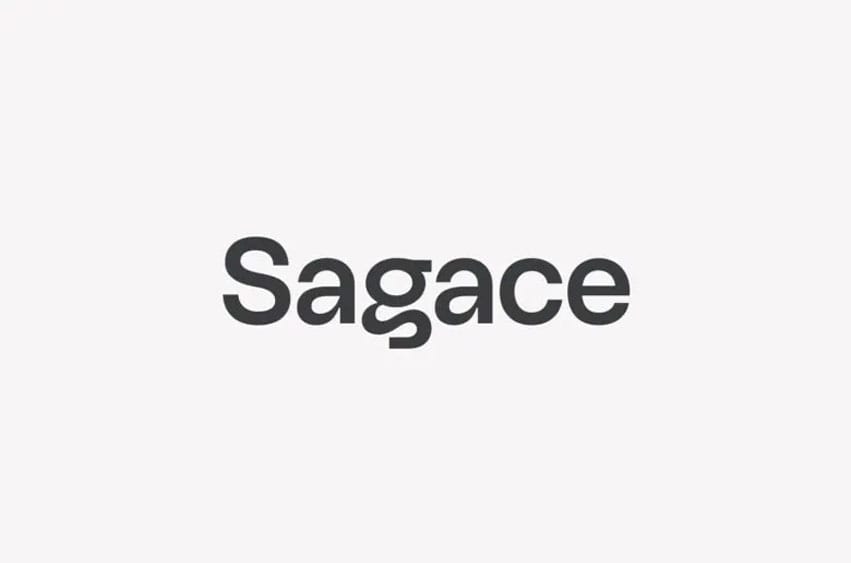
Sagace Font is a very beautiful sans serif font family.
Due to its versatility, it can be used in various design purposes for example, branding, logos, headlines, and even web content, books, etc. Sagace offers a professional and clean look, which makes it ideal for many design projects and it can be used effectively in any typography-related project.